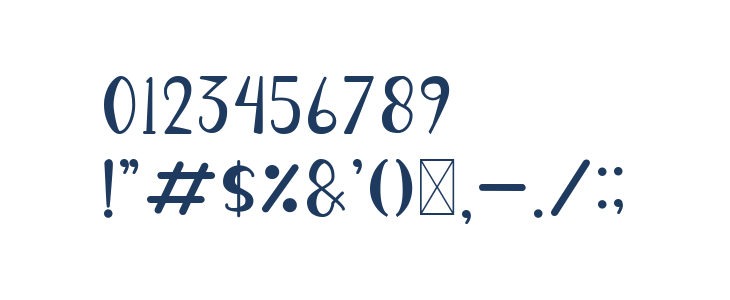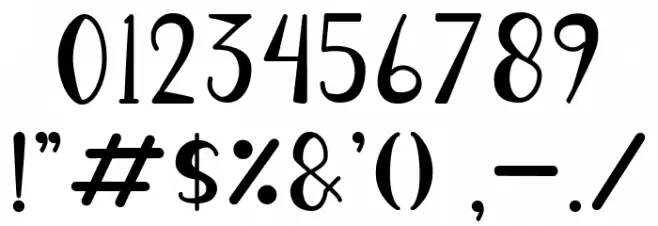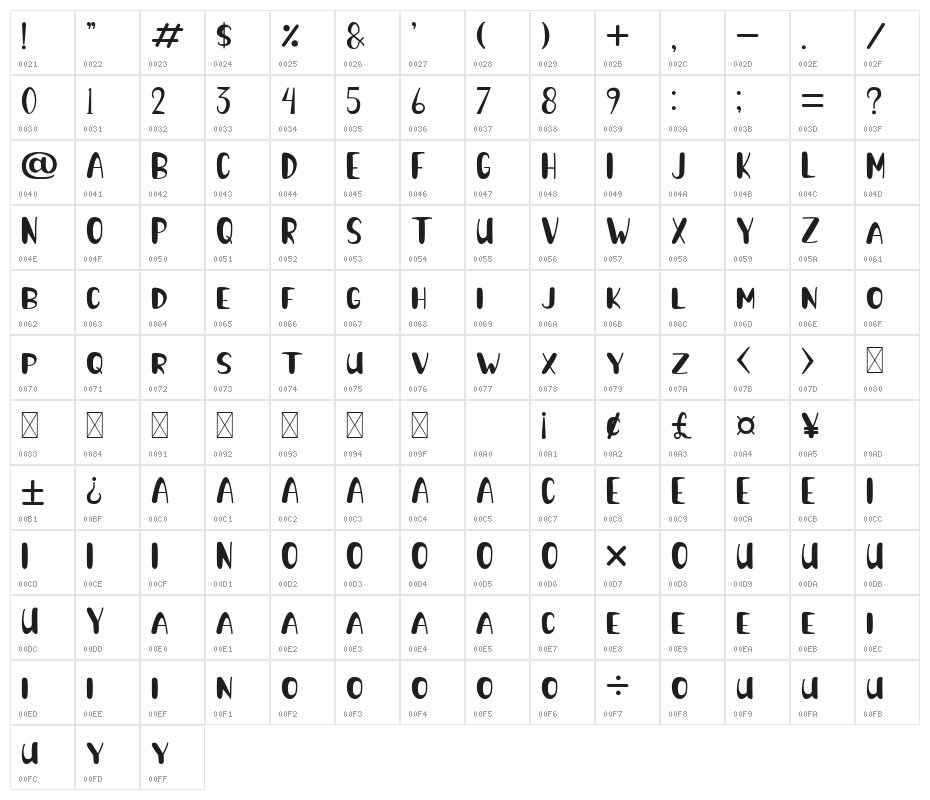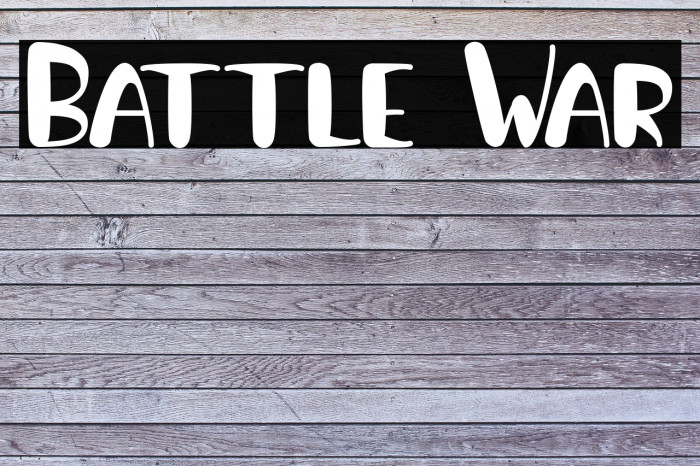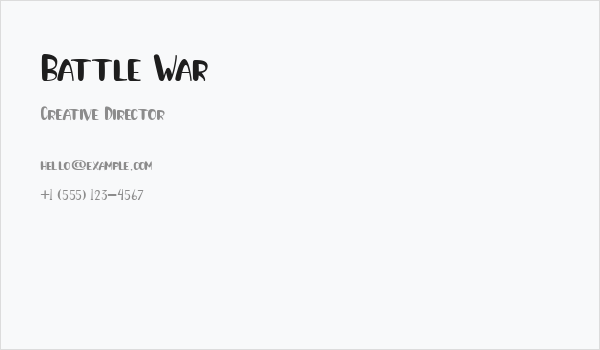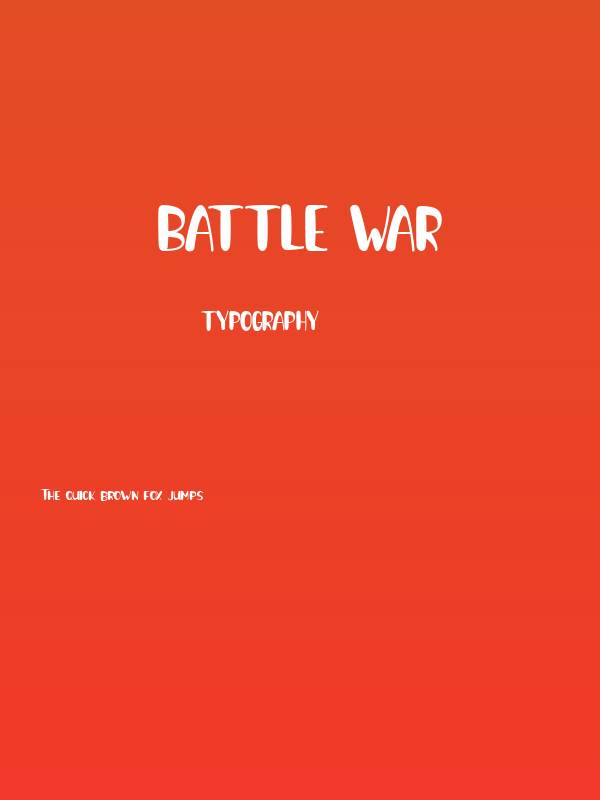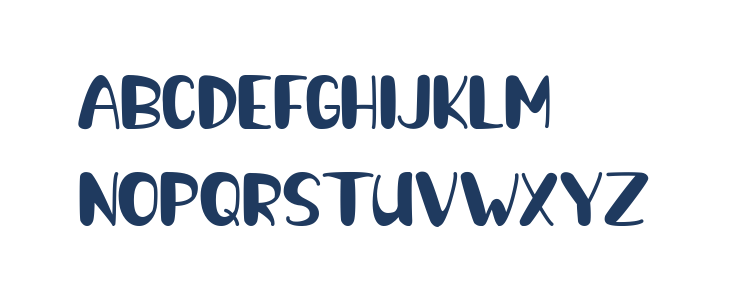
Battle War Font
Battle War Description
This font features a bold and dynamic style with a playful and slightly irregular form. The characters are rounded and have a hand-drawn appearance, giving them a friendly and approachable feel. The uppercase and lowercase letters are consistent in style, maintaining a cohesive look throughout. The numbers and special characters complement the alphabet with the same bold and lively design. This font is highly legible and stands out due to its thick strokes and unique character shapes.
| Overall Style | Playful, Hand-drawn |
| Proposed Projects | Ideal for children's books, playful branding, posters, and creative projects that require a friendly and approachable typeface. |